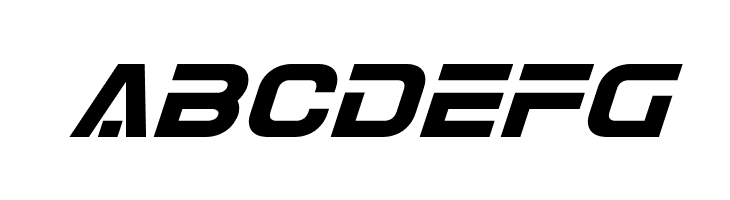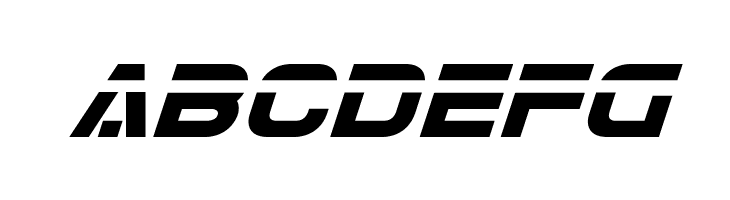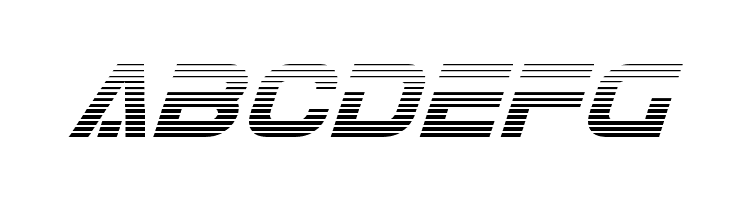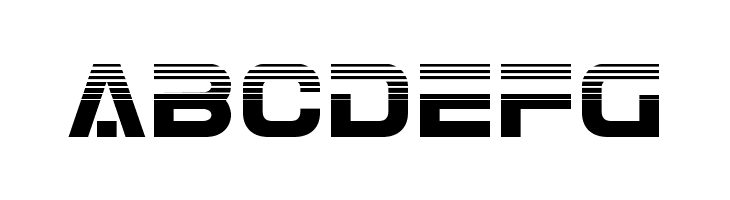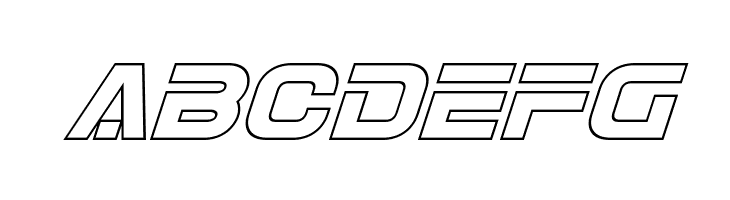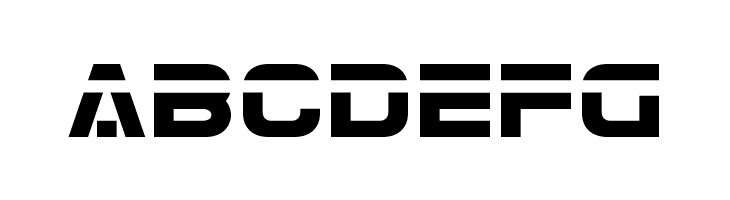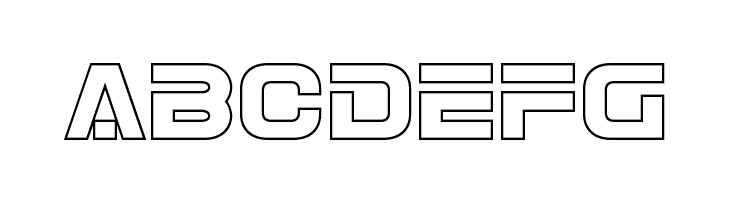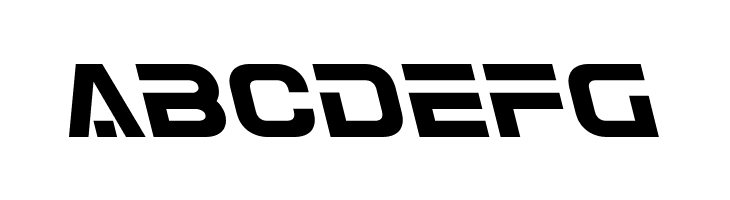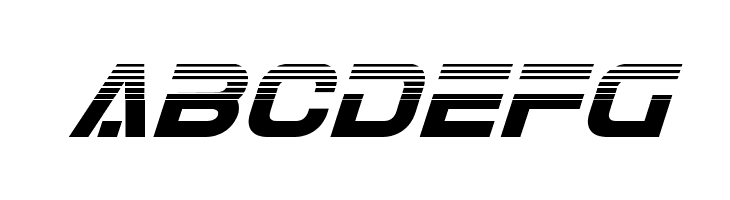
• Eurofighter Gradient Italic
A futuristic italic font with gradient lines and a dynamic style.
• Eurofighter Halftone
A bold, futuristic font with a dynamic halftone effect.
• Eurofighter Halftone Italic
A dynamic, italicized font with a halftone effect and bold, angular strokes.
• Eurofighter Italic
A sleek, italicized font with angular, futuristic letterforms.
• Eurofighter Laser
A bold, futuristic font with geometric and angular design elements.
• Eurofighter Laser Italic
A bold, italicized font with a futuristic and dynamic design.
• Eurofighter Leftalic
A bold, futuristic font with angular, slanted characters.
• Eurofighter Outline
A bold, geometric outline font with a futuristic and technical look.
• Eurofighter Outline Italic
A bold, italicized outline font with a futuristic and dynamic style.
• Eurofighter Semi-Italic
A bold, semi-italic font with a modern, angular design.